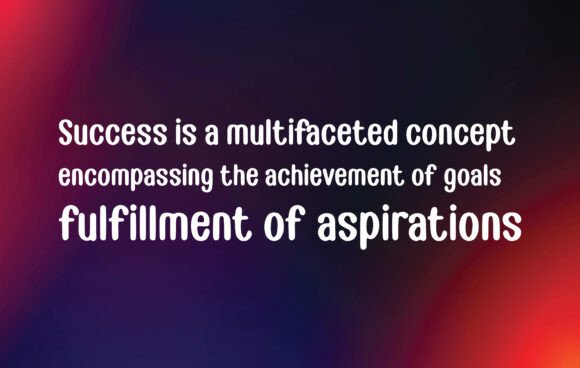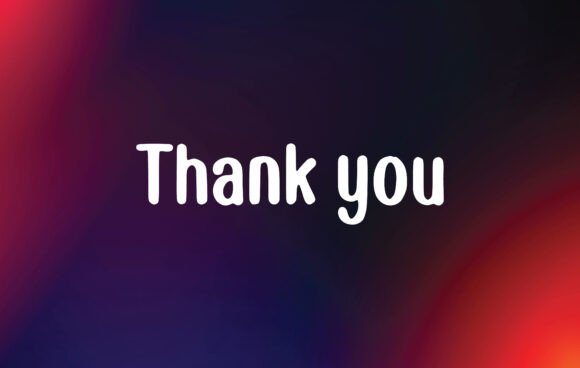
Ameera Font: Elevate Your Creative Projects with Elegance and Sophistication
In the world of design, fonts play a crucial role in conveying the tone and personality of a project. Whether you’re a graphic designer, a crafty DIY enthusiast, or a social media influencer, finding the right font can make all the difference. If you’re on the hunt for a beautiful, elegant, and versatile handwritten font, look no further than Ameera Font. In this article, we’ll dive into the world of Ameera Font, exploring its features, benefits, and uses, and why it’s the perfect choice for taking your creative ideas to the next level.
What is Ameera Font?
Ameera Font is a lovely and beautiful handwritten font that exudes elegance and sophistication. With its smooth, flowing lines and delicate curves, Ameera Font is the perfect choice for designers and crafters looking to add a touch of refinement to their projects. This font is designed to be highly versatile, making it suitable for a wide range of applications, from logos and branding to quotes and social media graphics.
Features of Ameera Font
So, what makes Ameera Font so special? Here are just a few of its standout features:
- Beautiful Handwritten Style: Ameera Font boasts a stunning handwritten style that’s both elegant and approachable. Its unique character makes it perfect for designs that require a personal touch.
- Highly Versatile: Whether you’re designing a logo, a brochure, or a social media graphic, Ameera Font is the perfect choice. Its versatility ensures that it will look great in any context.
- Ease of Use: Ameera Font is incredibly easy to use, even for those who are new to design. Its clean lines and simple curves make it a breeze to work with.
- Scalability: Ameera Font is designed to be scalable, ensuring that it looks great in any size. Whether you’re designing a tiny icon or a massive billboard, Ameera Font will always look its best.
Benefits of Using Ameera Font
So, why should you choose Ameera Font for your next project? Here are just a few of the benefits of using this amazing font:
- Adds Elegance and Sophistication: Ameera Font instantly elevates your designs, adding a touch of elegance and sophistication that’s sure to impress.
- Perfect for Logos and Branding: With its unique and memorable style, Ameera Font is the perfect choice for logos and branding. It’s sure to help your business stand out from the crowd.
- Great for Quotes and Social Media Graphics: Ameera Font is also perfect for quotes and social media graphics. Its clean lines and simple curves make it easy to read and understand, even at small sizes.
How to Use Ameera Font in Your Designs
Using Ameera Font in your designs is incredibly easy. Here are just a few tips to get you started:
- Pair it with Other Fonts: Ameera Font looks great when paired with other fonts. Try combining it with a bold sans-serif font for a striking contrast.
- Experiment with Colors: Ameera Font looks great in a range of colors. Experiment with different hues and shades to find the perfect combination for your design.
- Use it for Headings and Titles: Ameera Font is perfect for headings and titles. Its elegant style makes it a great choice for adding a touch of sophistication to your designs.
In conclusion, Ameera Font is a beautiful, elegant, and versatile handwritten font that’s perfect for designers and crafters looking to elevate their creative projects. With its smooth lines, delicate curves, and highly versatile style, Ameera Font is the perfect choice for logos, branding, quotes, and social media graphics. Whether you’re a seasoned designer or just starting out, Ameera Font is sure to become a favorite in your design arsenal.